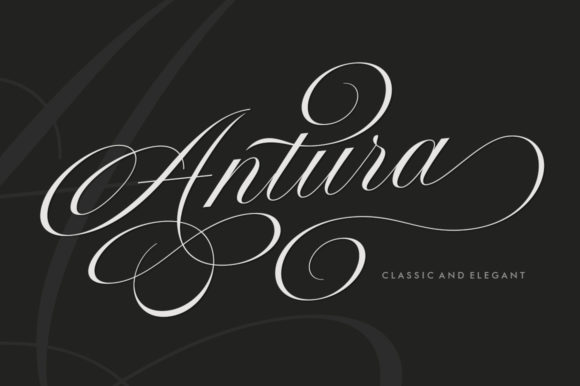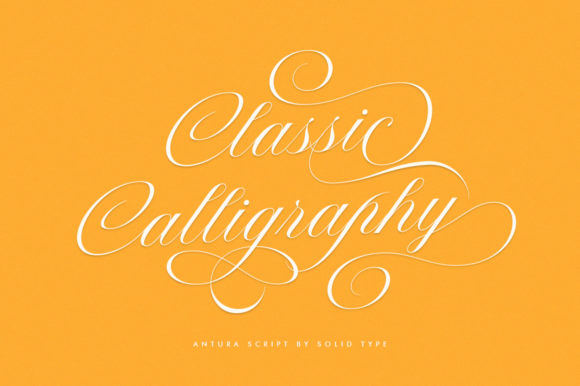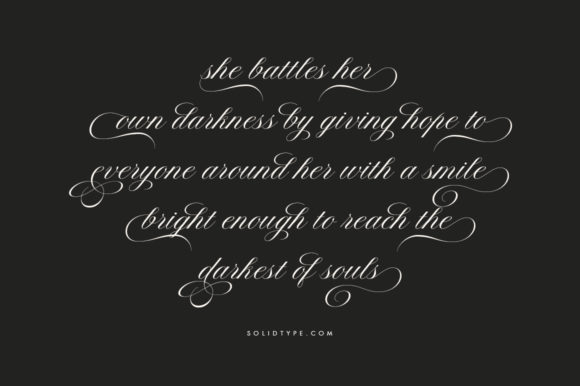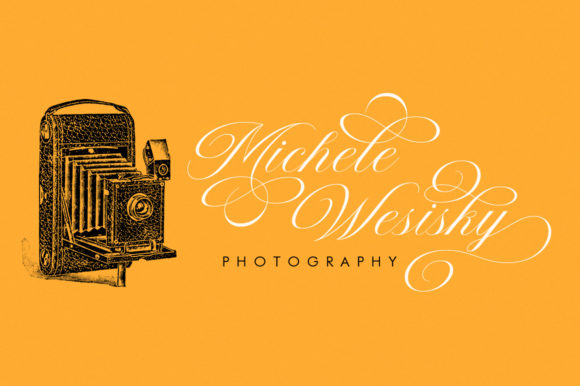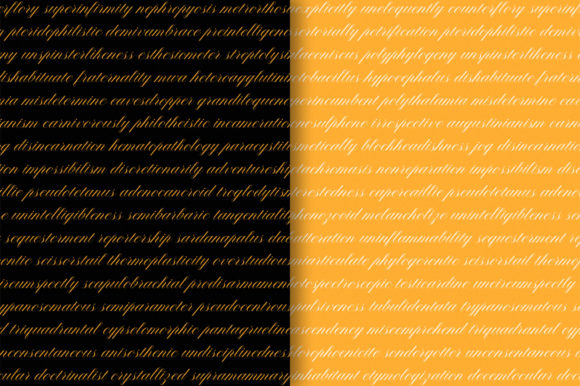
Antura Font
Antura Script is a calligraphy script font that comes with very beautiful changing characters, a kind of classic decorative copper script with a modern touch, designed with high detail to bring stylish elegance. Antura Script is attractive as a typeface that is smooth, clean, feminine, sensual, glamorous, simple and very easy to read, because there are many fancy letter connections. I also offer a number of viable style alternatives for many letters. The classic style is perfect to be applied in various formal forms such as invitations, labels, restaurant menus, logos, fashion, make up, stationery, novels, magazines, books, greeting / wedding cards, packaging, labels or any type of advertising purpose.